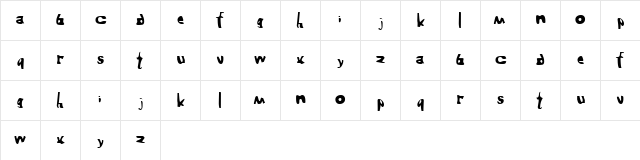
Bruce Normal
Design Context for Bruce Typeface
Bruce is a composed and adaptable typeface that performs quietly and consistently across a wide range of design contexts.